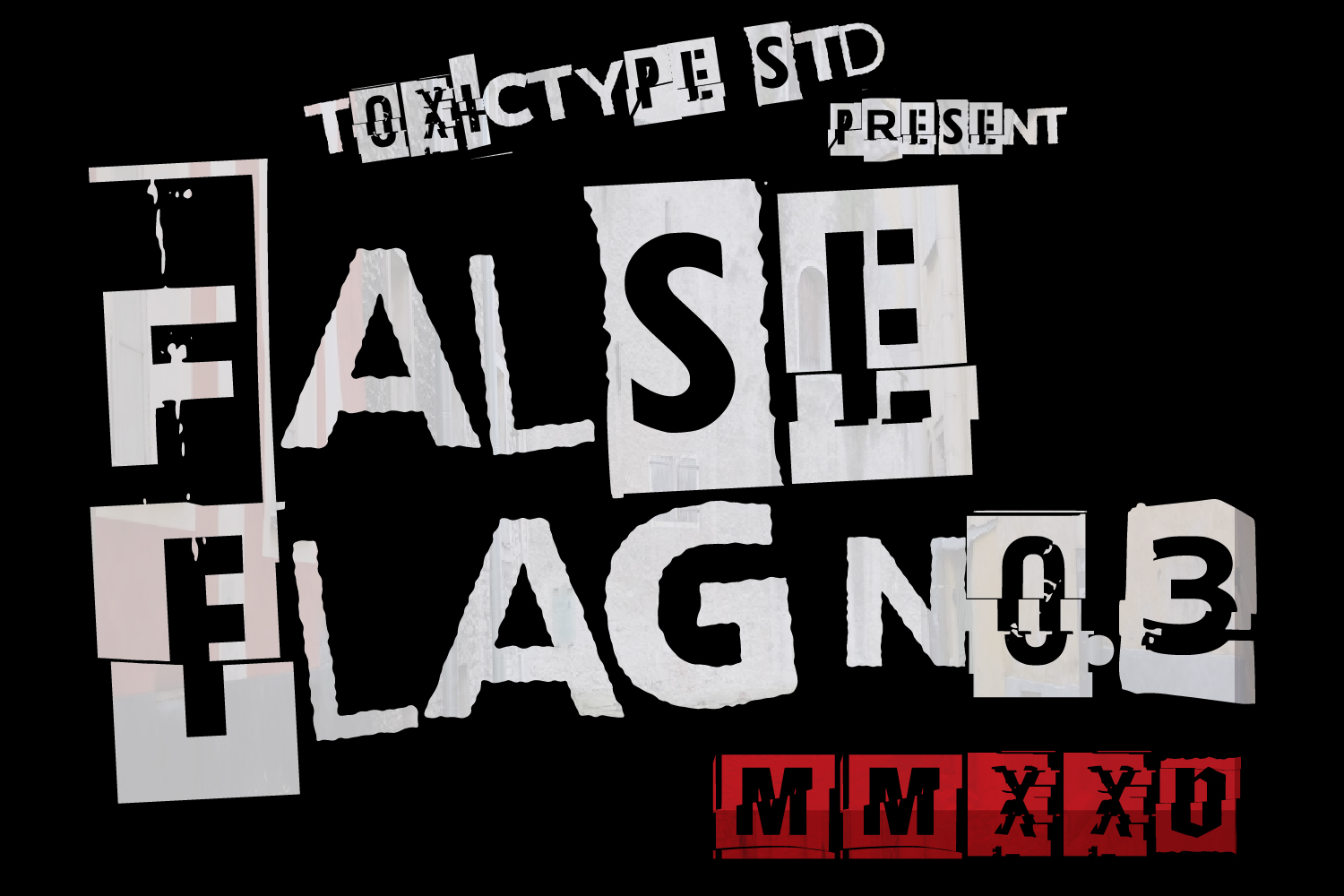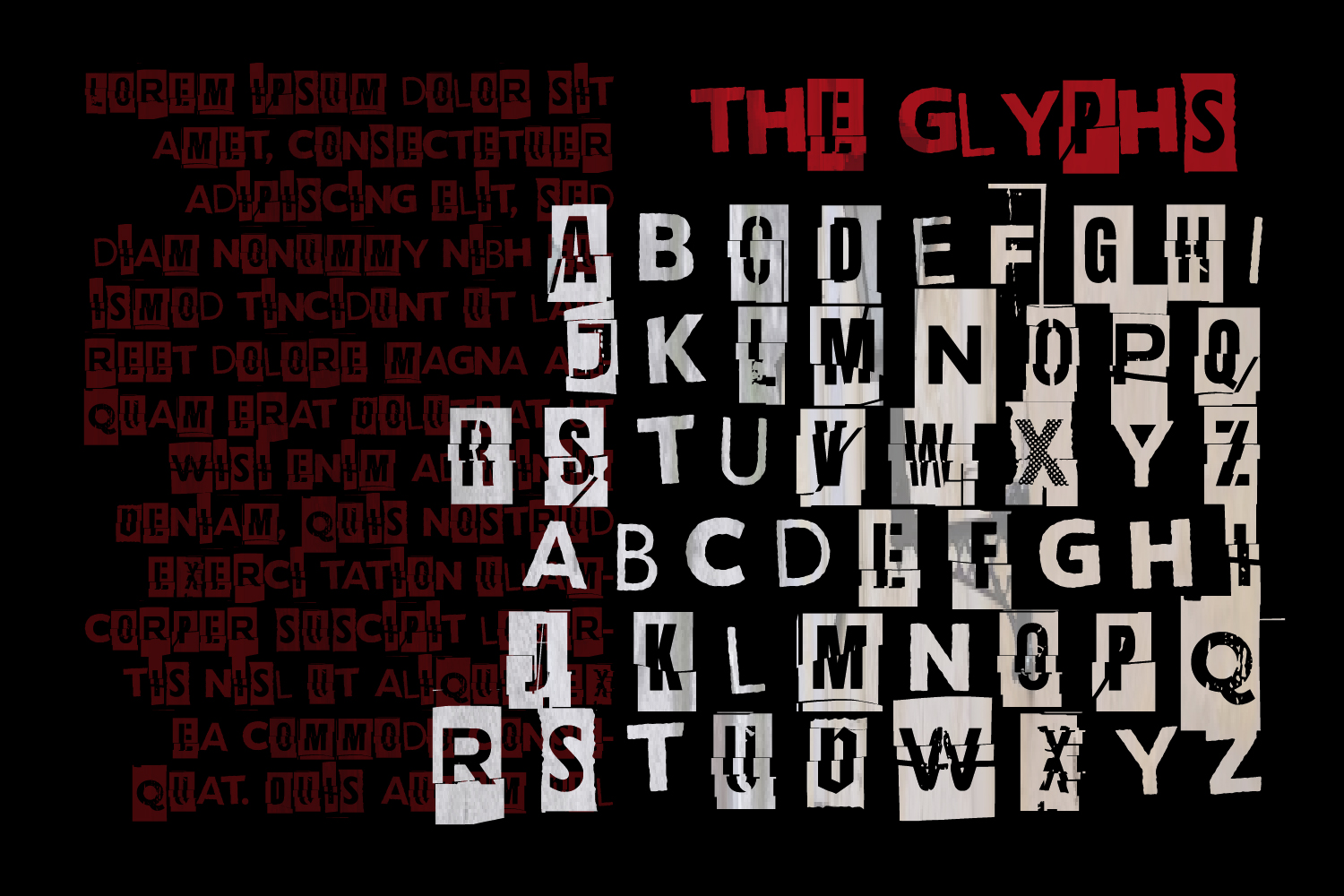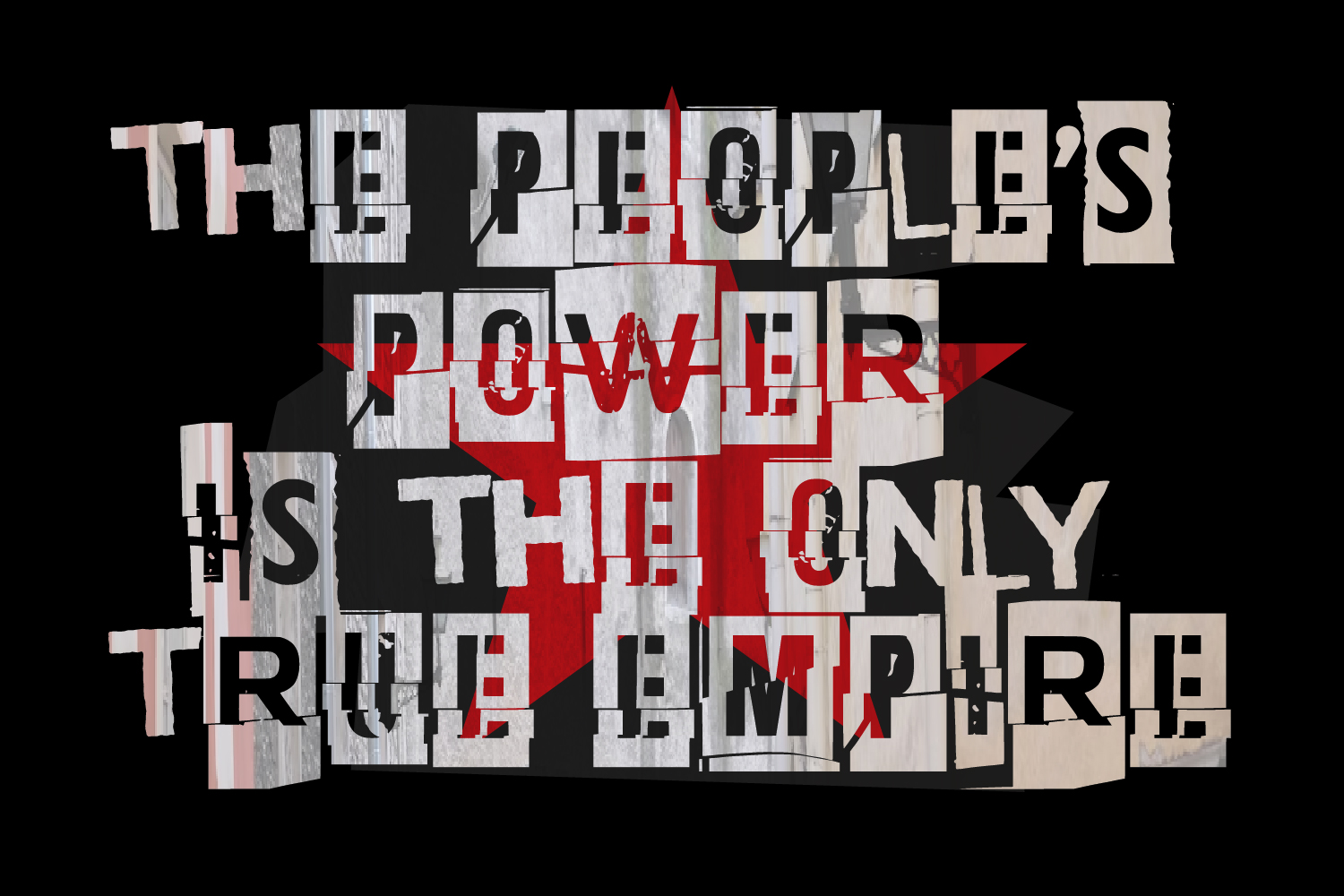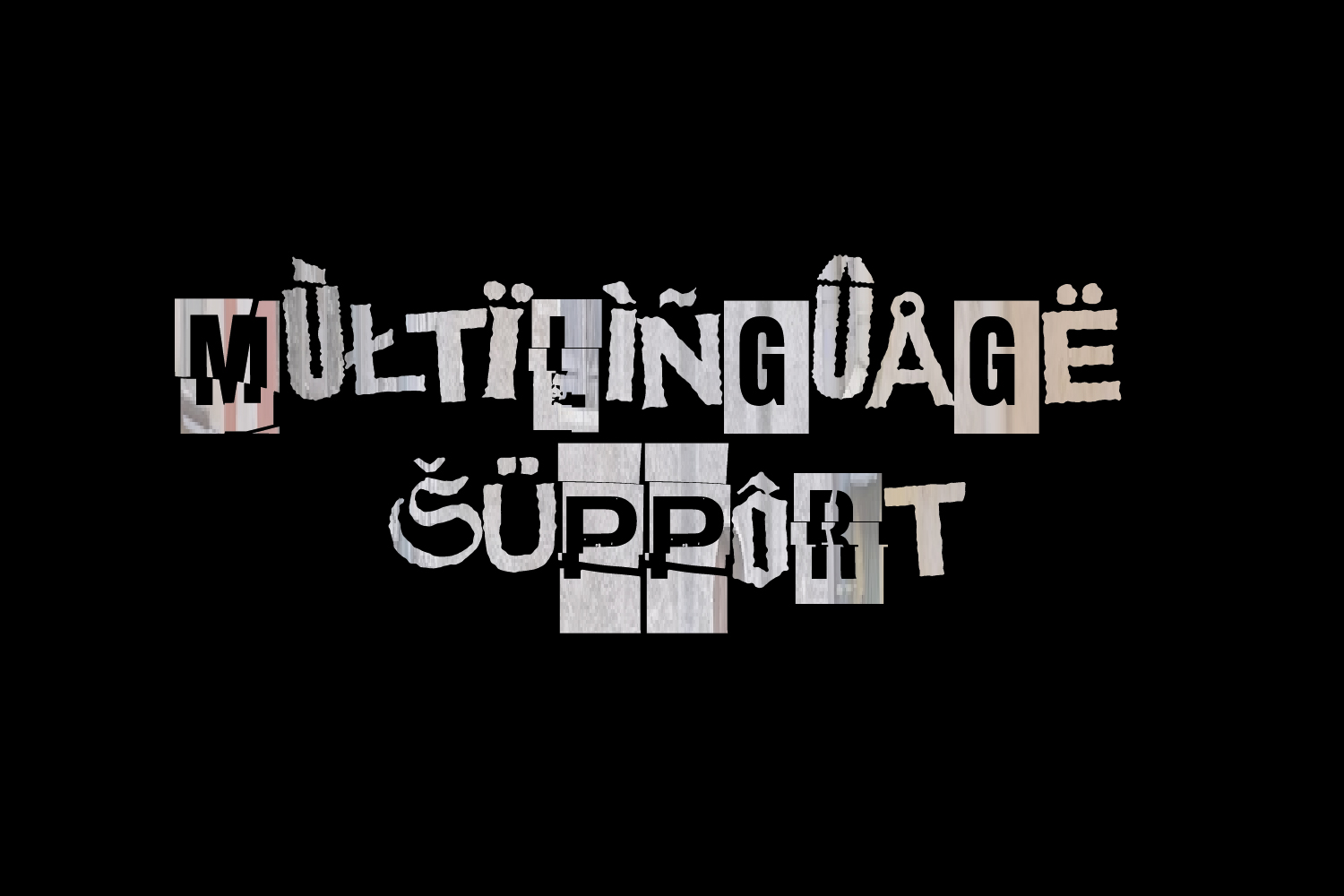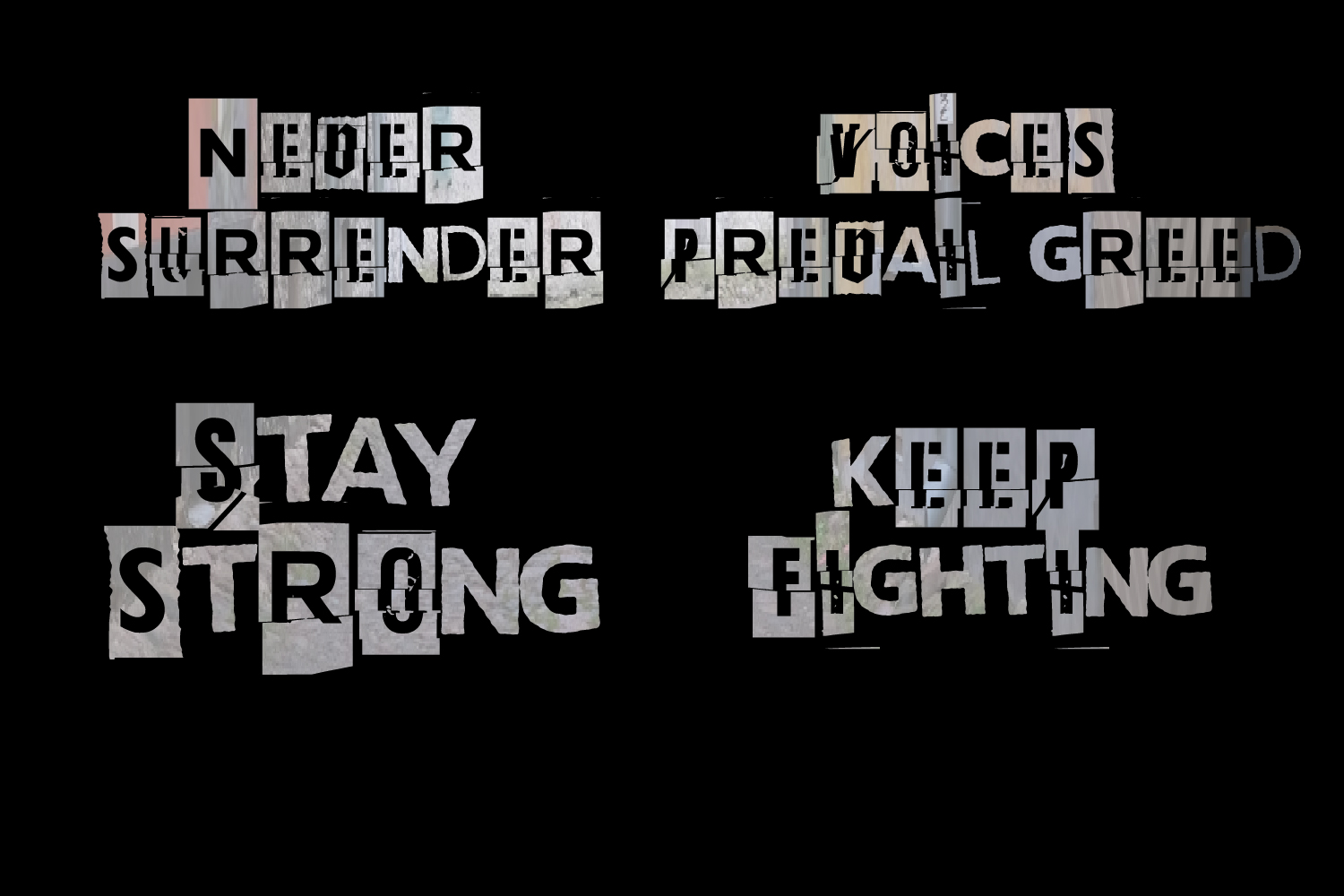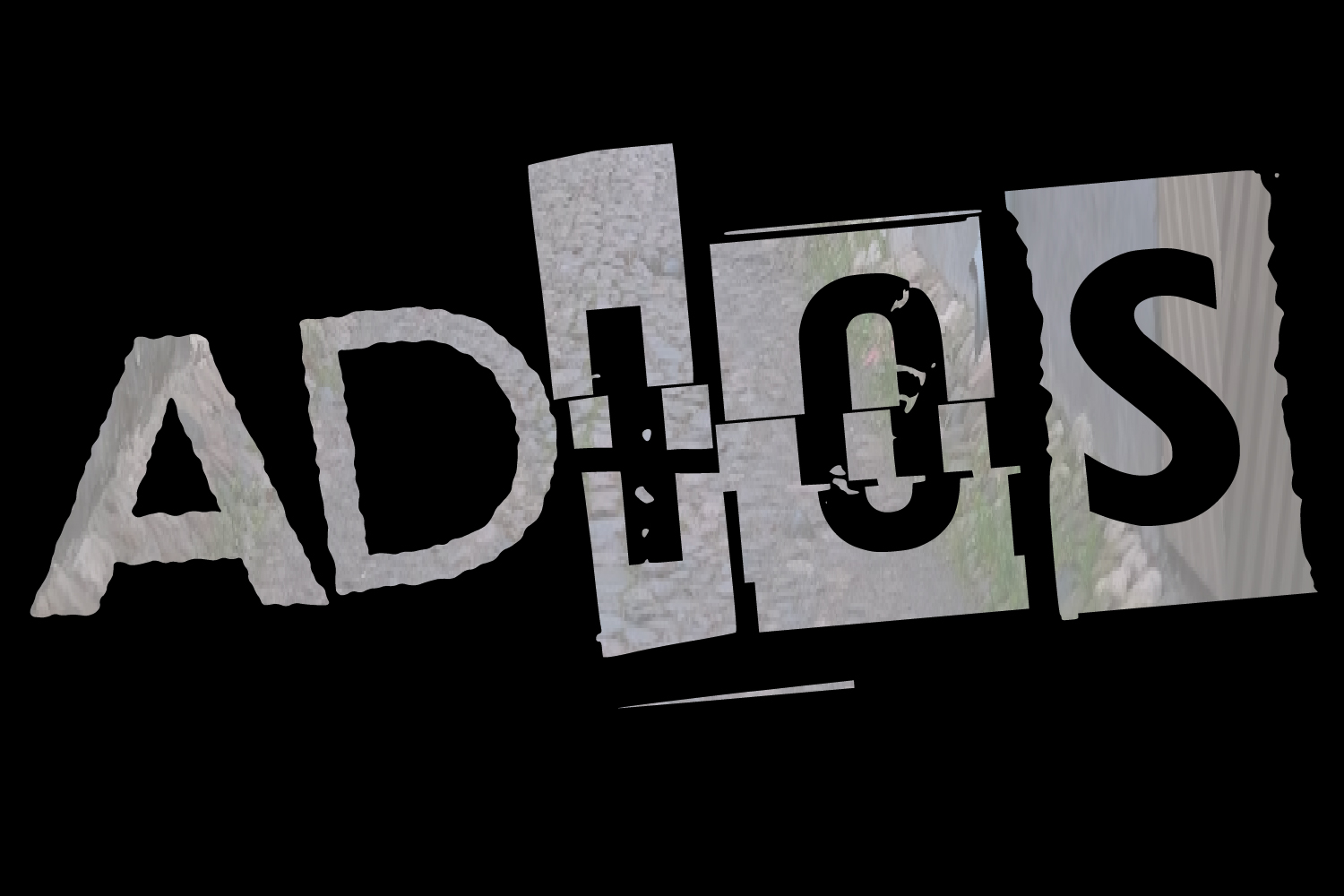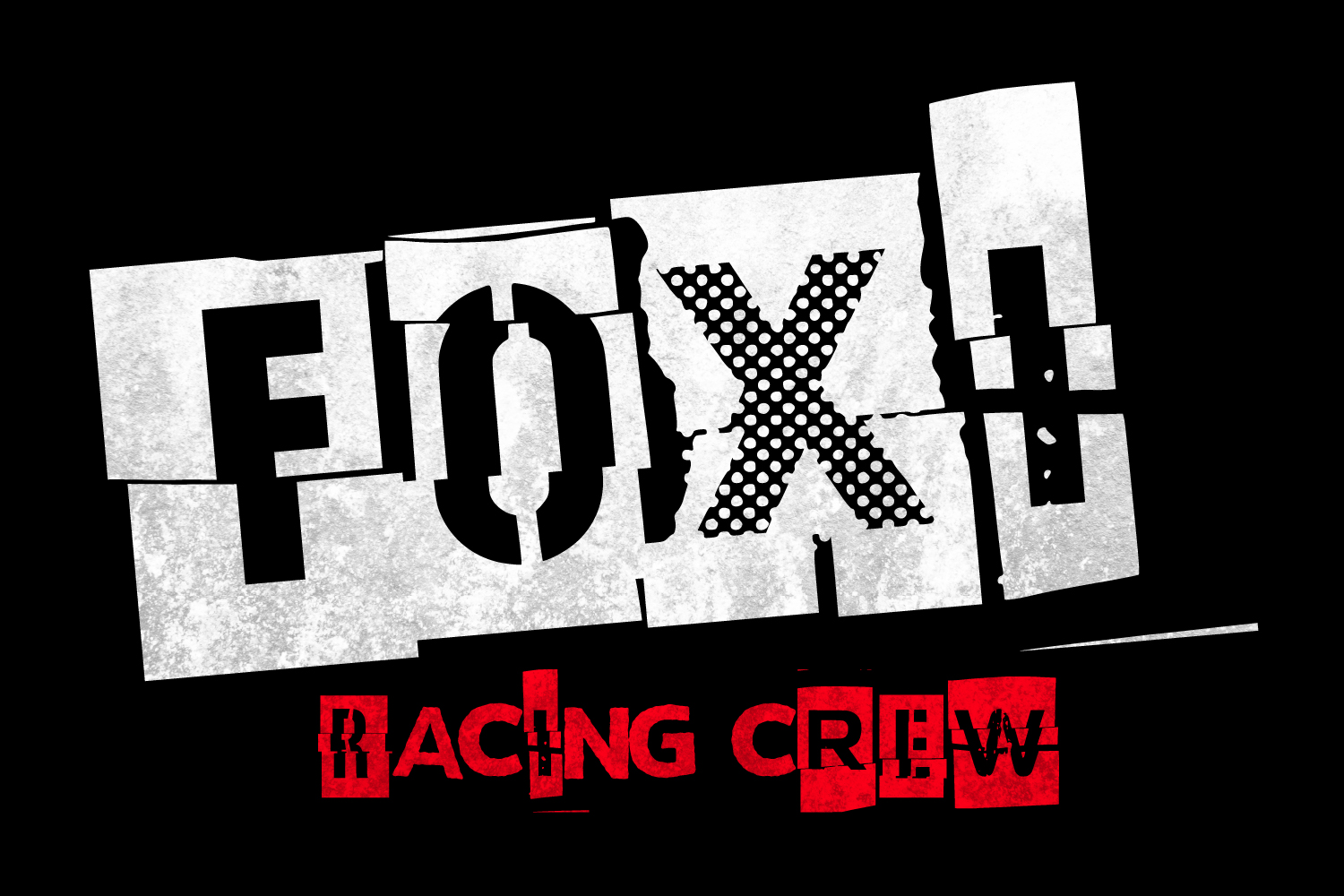
False Flag no.3 is a raw and rebellious punk font built with jagged edges, rough textures, and a loud DIY energy. Inspired by the torn posters on city walls, photocopied zines, and the spirit of underground rebellion, this typeface carries the authentic feel of chaos and resistance. Every letter feels ripped, scratched, and stitched together, just like the real visuals of street protest and punk culture.
Perfect for band logos, album covers, streetwear designs, protest posters, zines, flyers, and bold headlines, Broken Path adds an unapologetic voice to any project. If you want your design to scream with attitude, grit, and raw emotion — this font will cut through the silence like feedback from a distorted guitar.